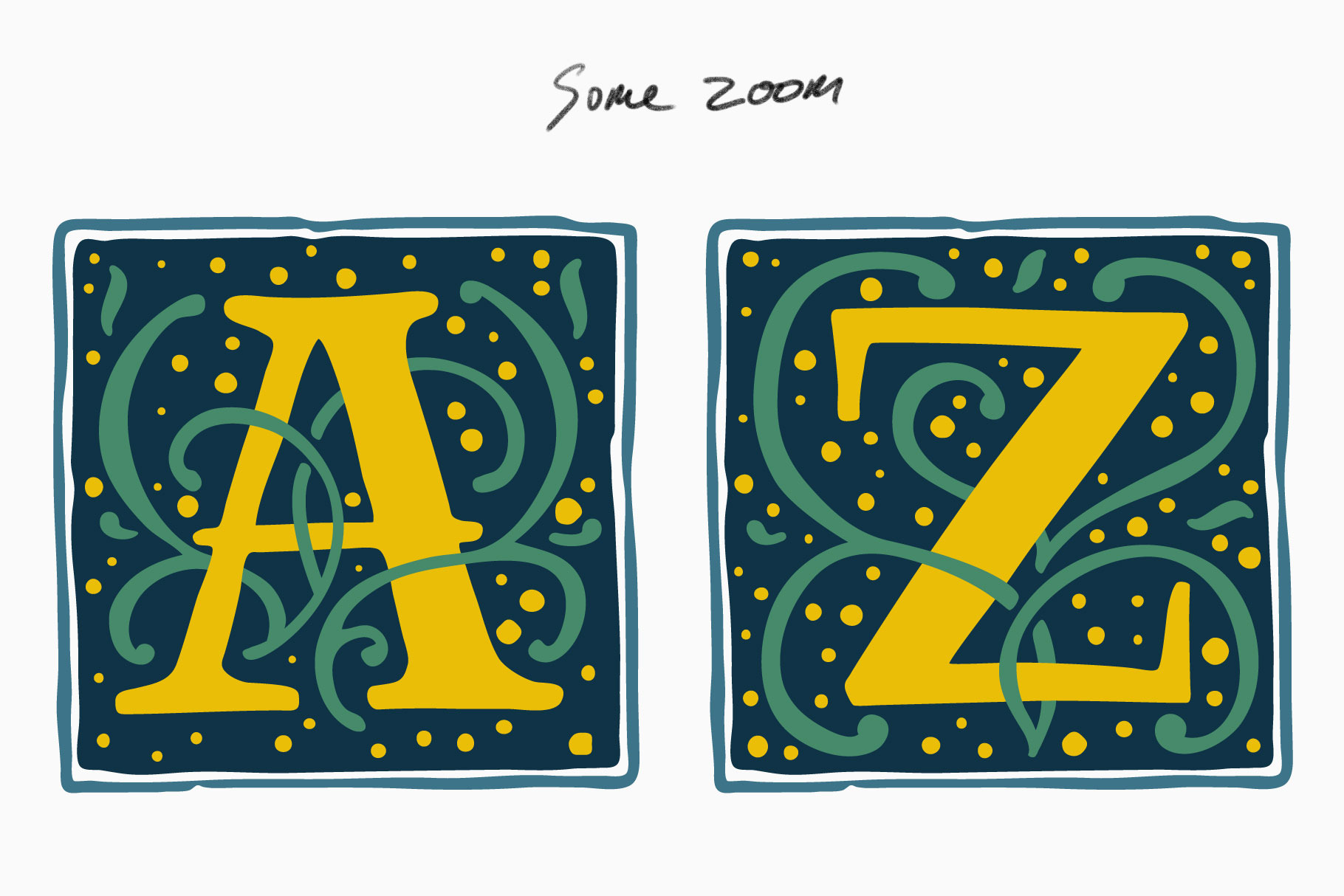
Renaissance Initials fonts
Renaissance Initials with lines and dots fonts
Uppercase letters from A to Z (26 characters) in classic vintage colors. Roman typeface, vector premium design template elements for your identity, package, book, diploma, etc.
Two fonts in color and b&w versions